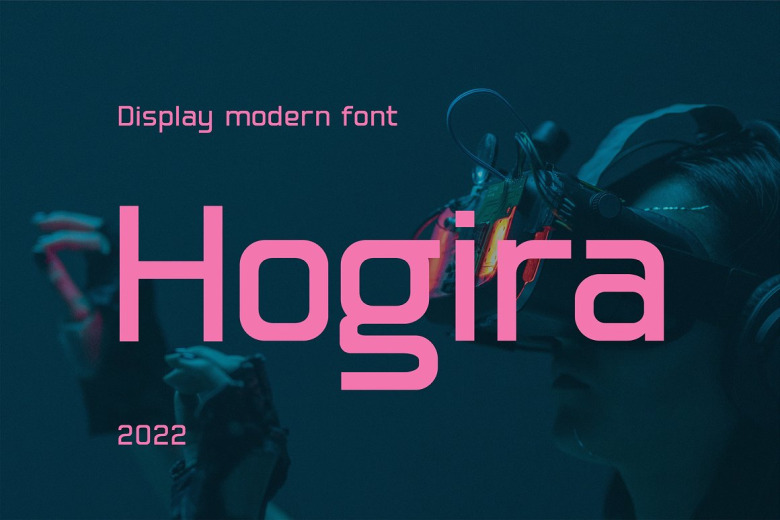
Hogira Font
Supporting twenty typeface families along with multilingual compatibility, Hogira allows for diverse artistic expression and global communications through a sleek yet adaptable typographic system poised for the innovations still on the horizon.
Hogira Sans Serif Font